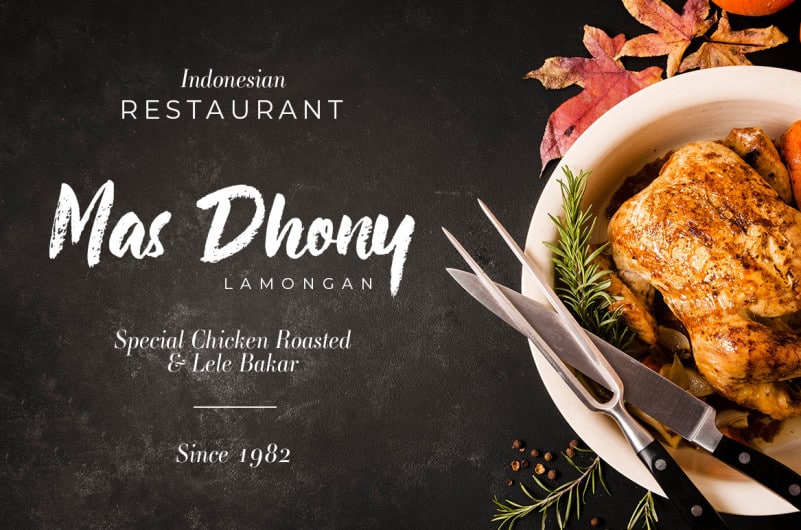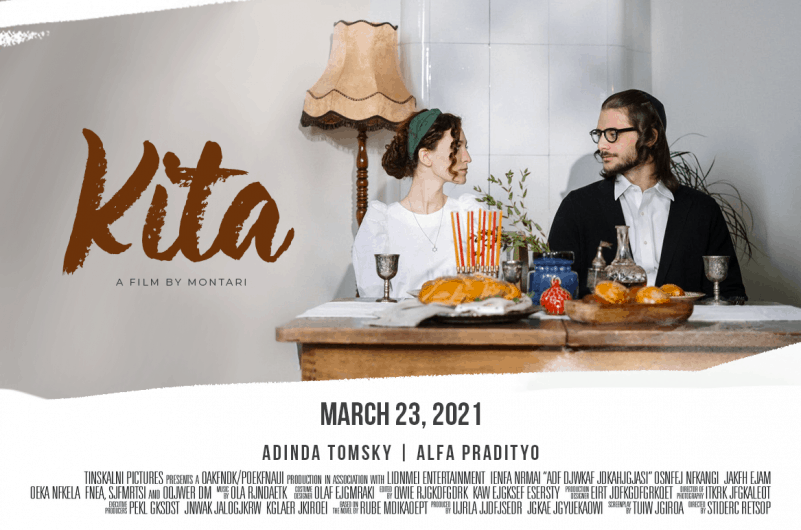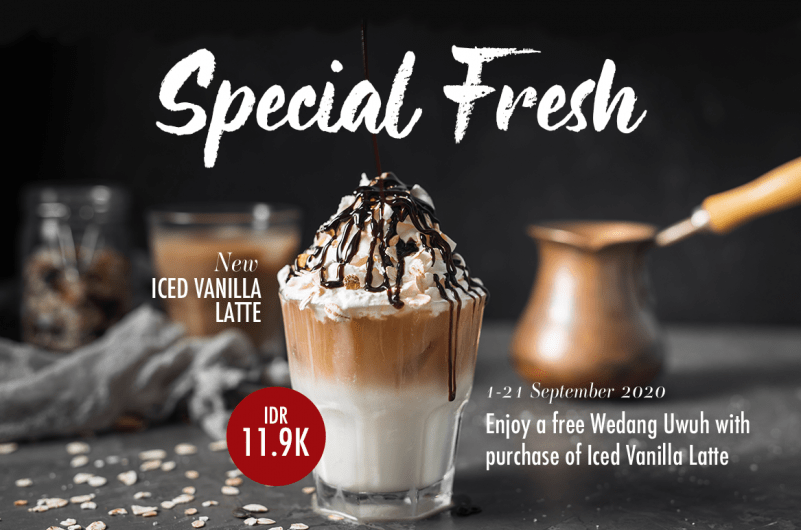
Buree Chalk Brush Font
Buree Chalk Brush Font is a unique handwritten font with a chalk texture. Fall in love with it and bring your projects to the highest levels!